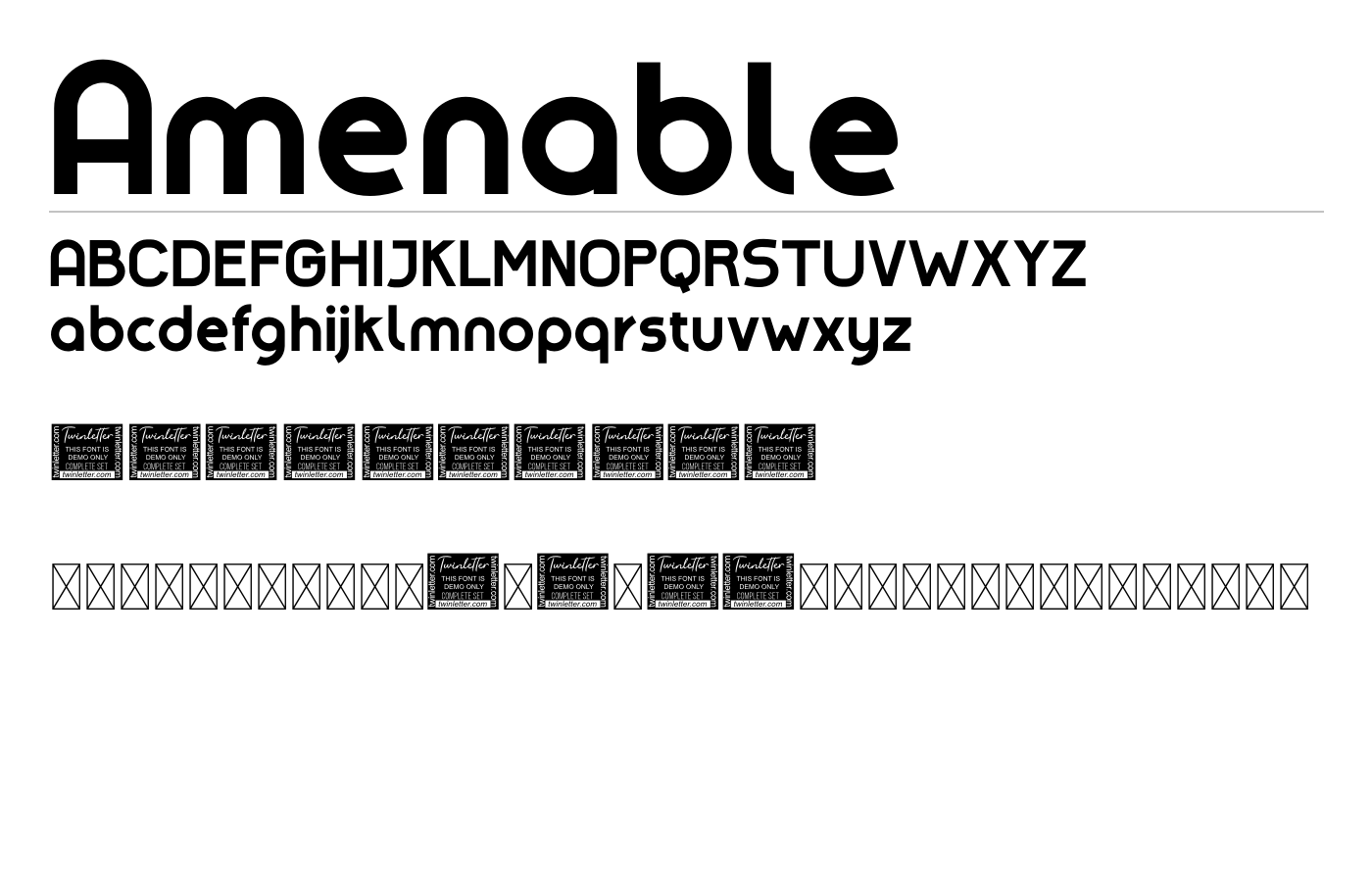
Amenable is a clean, modern sans-serif font with a slightly geometric style highlighted by its rounded letterforms and consistent stroke weight. Its medium weight and normal width offer excellent readability, making it suitable for both display and body text in a variety of design projects. This approachable and versatile font is ideal for branding, editorial layouts, and web use where a friendly yet professional tone is desired.
Amenable Font
About Amenable Font